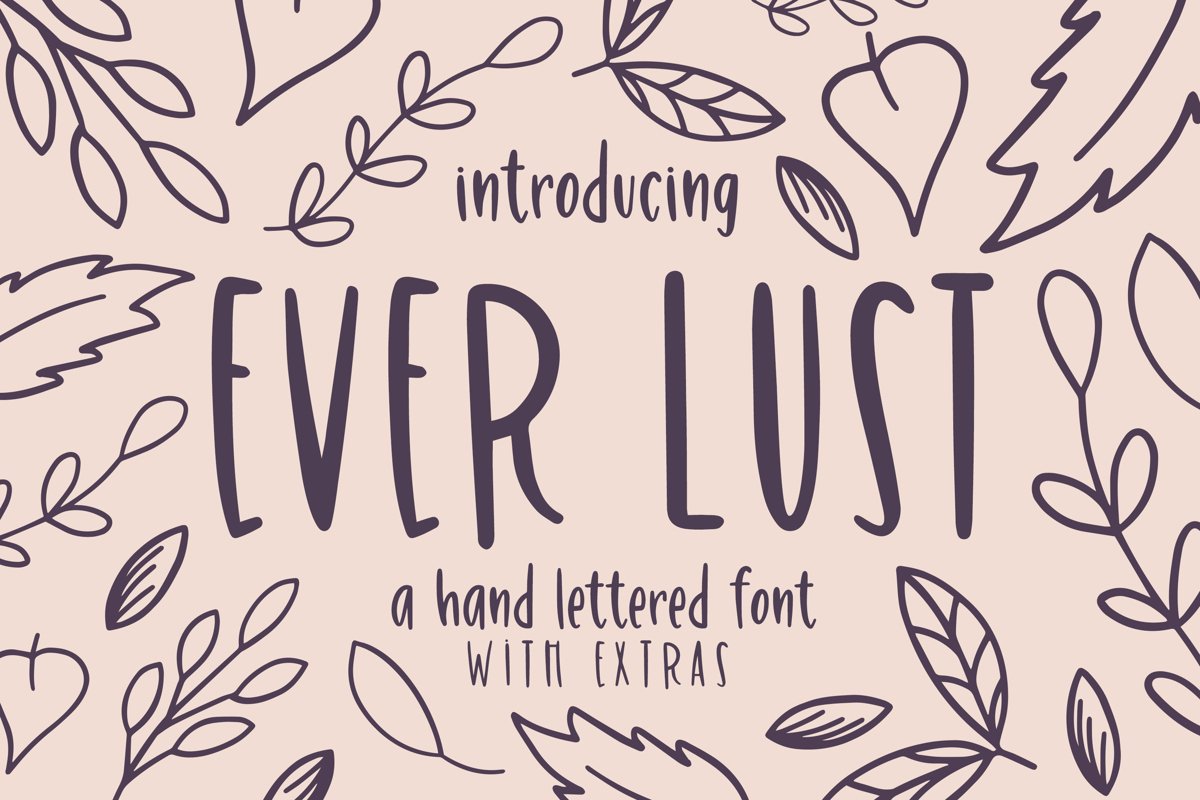
Ever Lust
Ever Lust is a fun San Serif Font that has a cute and hand-lettered alphabet! This simple sans is a great addition to your font collection! Whether you're looking to brand your company, send out invitations to for a party, or need a font to cut vinyl for signs Ever Lust will help you create the best looking final product!
Comes with 8 Beautiful Hand-drawn Floral Extras in the format EPS. These florals pair perfectly with the Ever Lust font for a beautiful and feminine feel.